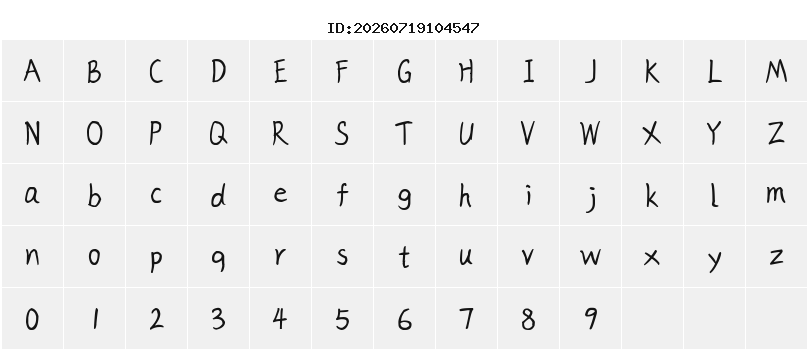
YEFONTQinqLangShouJinTi 標準 Preview
• Font Name: YEFONTQinqLangShouJinTi 標準
• Full Font Name: 也字工廠清朗瘦金體 標準
• Manufacturer: 也字工厂
About YEFONTQinqLangShouJinTi 標準.TTF
YEFONTQinqLangShouJinTi 標準.TTF is a modern, elegant sans-serif font designed for ultimate readability and visual harmony. Perfect for branding, headlines, web design, and print materials.